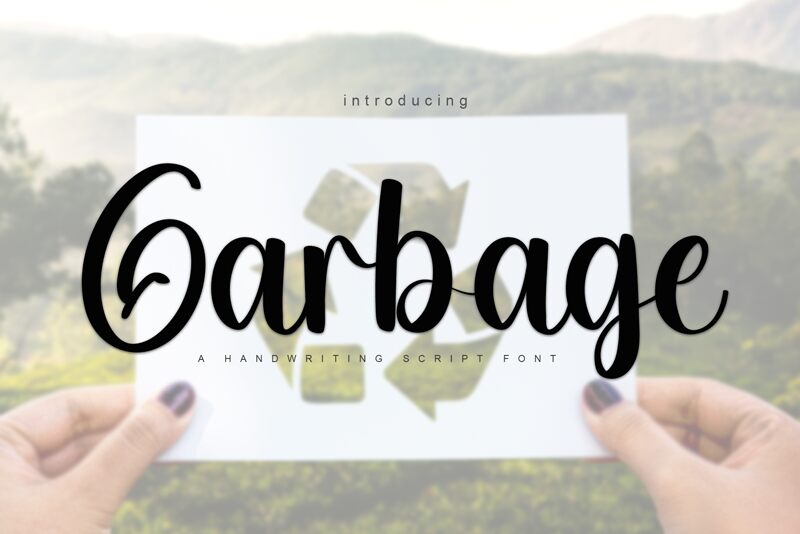
Garbage font, designed by creatype designer, is a free script font made with lively movements. The typeface has a contemporary and approachable style that gives a friendly impression. It has an organic flow with a handwriting-like look characterized by an expressive flair. The letters look artistic and harmonious in a minimalist way.
Garbage font will help showcase products like coffee brands, candles, jewelry, desserts, stationery, and shoes. It also works for packaging, posters, menus, wedding invitations, labels, magazine covers, t-shirts, logos, or greeting cards.
This font retains a classy calligraphic influence while feeling contemporary and fresh. Its versatility will attract a wide range of creative ideas, making it perfect for letterheads, titles, and stationery.